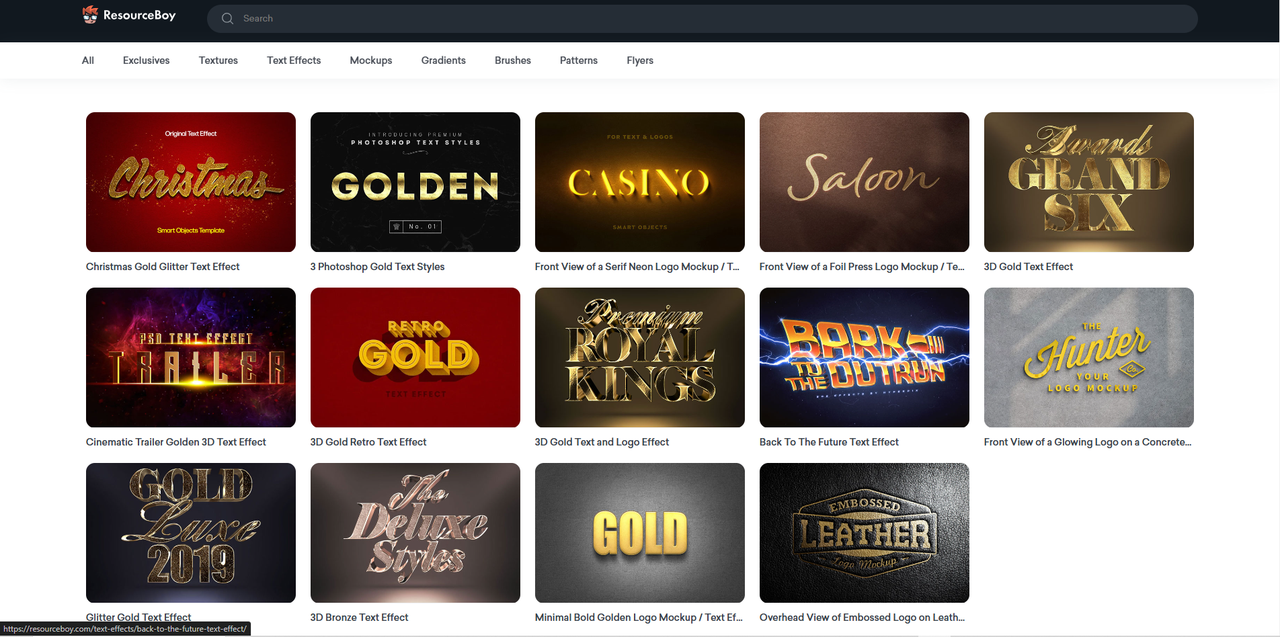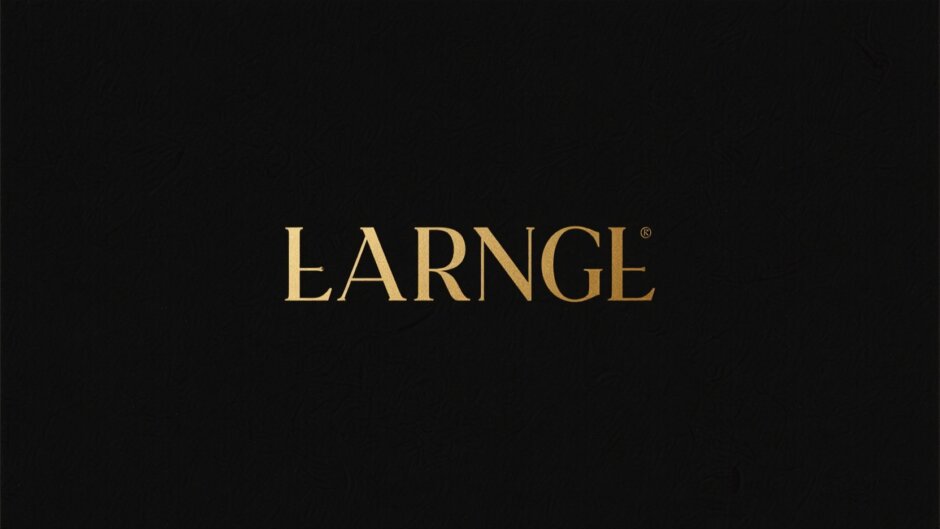
Ever notice how some designs just seem to sparkle and grab your attention right away? Often, it’s because they use something special—like gold fonts. Gold text has a way of making things look fancy, important, and just plain cool. Whether you’re designing an invitation, a logo, or a social media post, gold fonts can totally change the vibe.
In this guide, we’ll explore why gold fonts are so popular and check out some fun and creative ways to use them. We’ll also share some awesome tools that make it super easy to add golden text effects to your own projects. Let’s get started!
Why Gold Fonts Make Your Designs Stand Out
Gold isn’t just a color—it’s a feeling. It makes people think of luxury, celebration, and something special. When you use gold fonts in your designs, you’re adding a touch of elegance that can make your work look more polished and professional.
One of the best things about gold text is how well it contrasts with other colors. Whether your background is dark, light, or even colorful, gold tends to pop. That means your message won’t just be seen—it’ll be remembered.
Plus, gold fonts work for almost any occasion. Wedding invites, birthday cards, brand logos, YouTube thumbnails—you name it. There’s just something about gold that makes everything feel a little more special.
5 Creative Ways to Use Gold Fonts
Ready to get inspired? Here are five fun ideas for using gold fonts in your designs.
Fancy Script Fonts for Special Events
If you’re designing something for a wedding, a fancy party, or any kind of celebration, script fonts in gold are a perfect match. The flowing, elegant letters give a romantic and classy feel. Whether it’s an invite or a menu, gold script fonts make it look extra special.
Strong Serif Fonts for Branding
When you want your brand to look trustworthy and professional, serif fonts in gold are a great choice. They have a classic, strong look that people associate with quality. Adding a 3D gold effect can make your logo or brand name even more eye-catching.
Vintage Fonts for a Retro Vibe
Love that old-school look? Try using vintage-style gold fonts. They’re perfect for themed parties, retro product packaging, or anything that needs a nostalgic touch. A 3D gold effect can make vintage text look even more dynamic and interesting.
Clean Sans-Serif Fonts for a Modern Look
If your style is more modern and minimal, sans-serif gold fonts are the way to go. They’re simple, easy to read, and look great on websites, apps, or social media graphics. This style keeps things fresh and stylish.
Handwritten Fonts for a Personal Touch
Want to make your design feel friendly and personal? Handwritten gold fonts are awesome for greeting cards, blog graphics, or anything where you want to connect with your audience. They give a warm, human feel that’s hard to get with other fonts.
Top 5 Tools for Downloading Free Gold Text Effects
You don’t need to be a pro designer to use gold fonts. There are tons of free tools online that make it easy to add beautiful gold text to your projects. Here are five of our favorites.
CapCut Desktop Video Editor
If you’re into making videos, CapCut is a game-changer. It’s packed with cool features, including awesome gold text effects and animations. The best part? It’s super easy to use, even if you’ve never edited a video before.
Why CapCut Is Great for Gold Fonts
CapCut has built-in gold text effects, so you don’t need extra plugins or complicated steps. You can adjust shadows, glows, and blend modes to make your text look just right. It also lets you place text exactly where you want it, which is perfect for creating cool layouts.
How to Add Gold Fonts in CapCut
First, download and install CapCut. Open the software and start a new project. Import your video by dragging and dropping it into the workspace.
Next, go to the “Text” menu, click on “Effects,” and choose a gold text style. You can customize the color, opacity, and position until it looks perfect. If you want something more unique, try the “AI generated” option and type in “Gold text” for even more ideas.
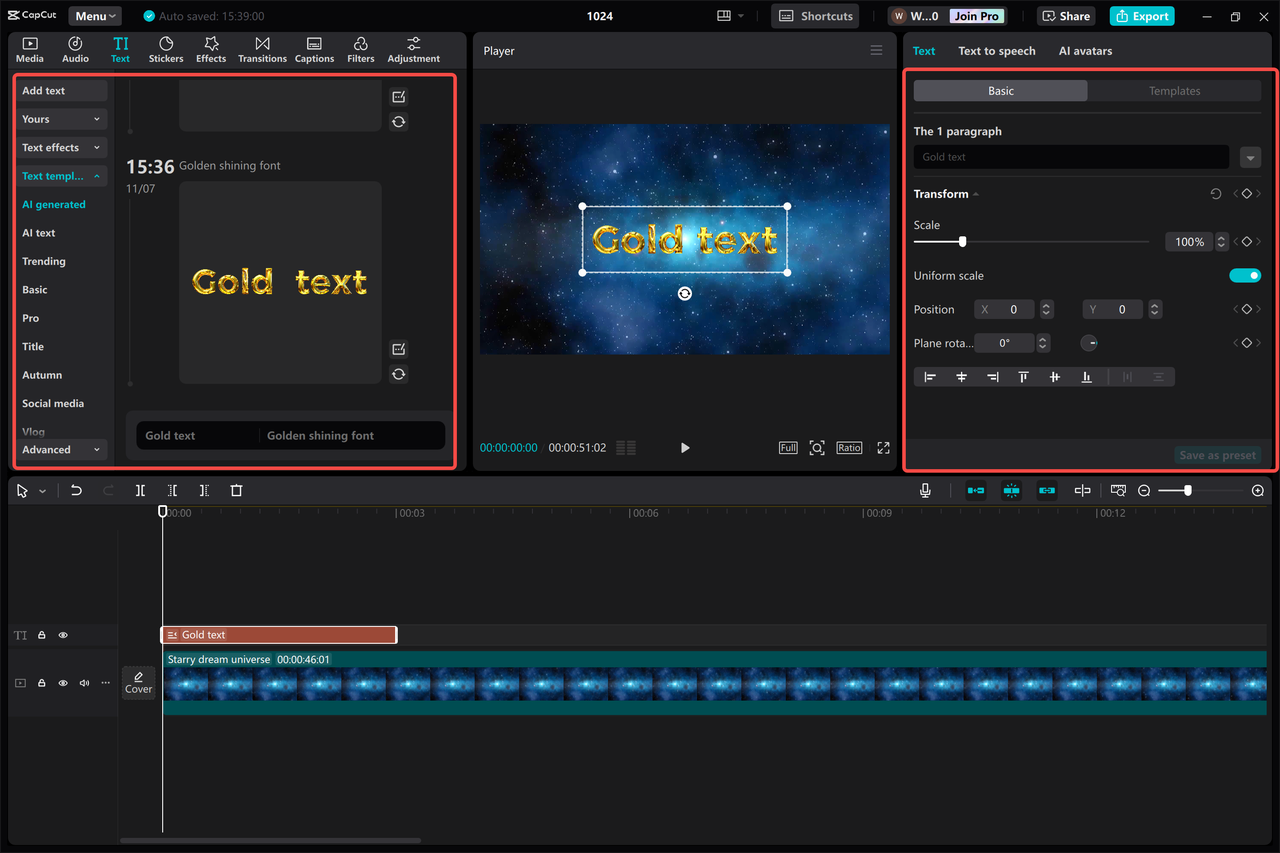
When you’re happy with your video, export it and share it with the world!
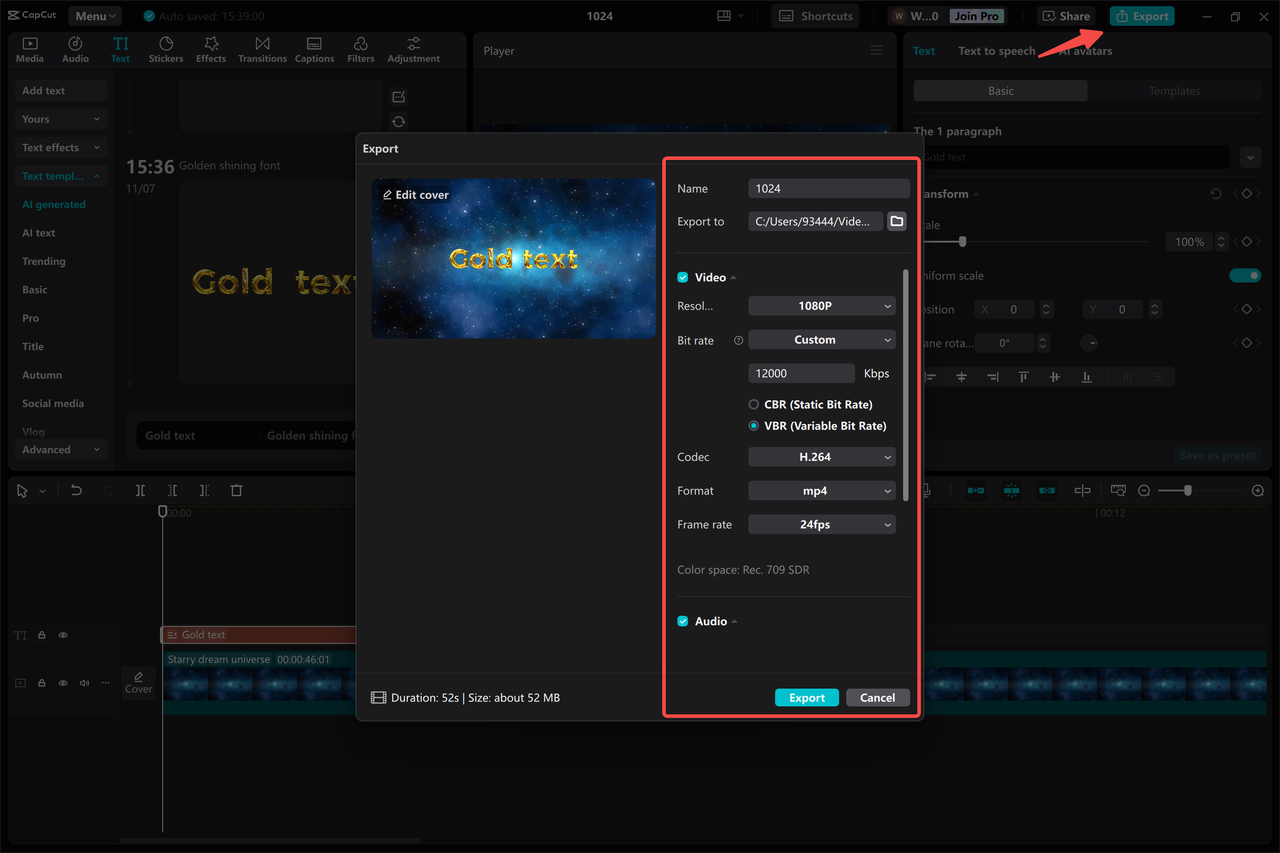
Fontspace
Fontspace is a huge library of free fonts, including tons of gold text options. You can browse by style, see previews, and download your favorites in just a few clicks. It’s a great resource for finding unique fonts that fit your project perfectly.
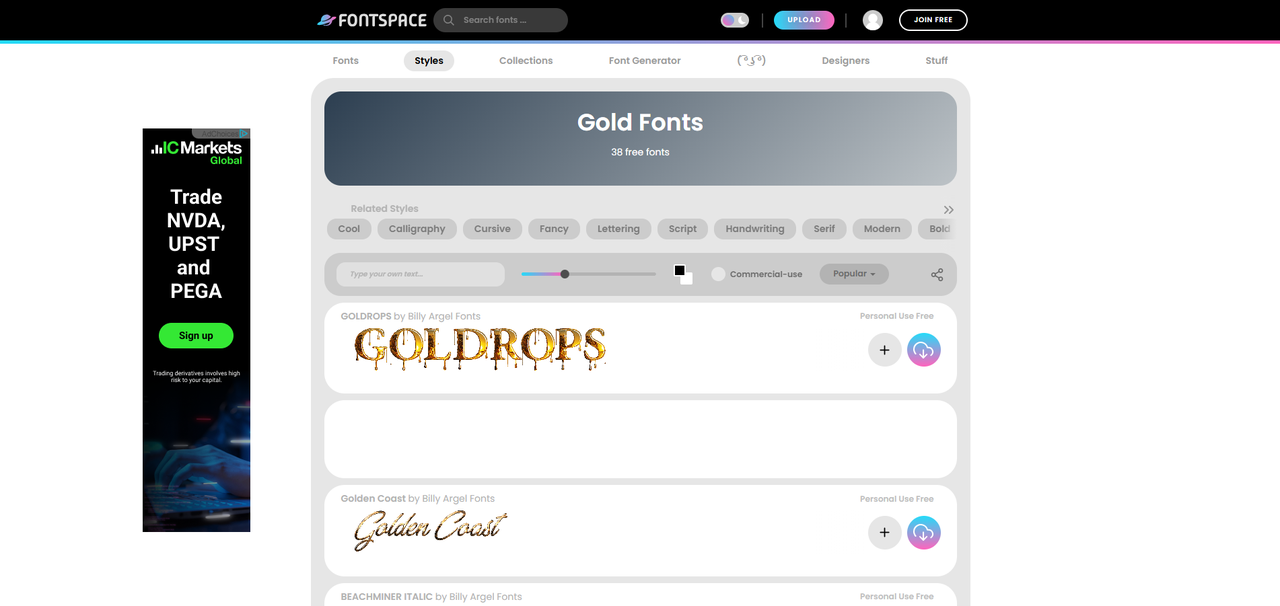
Freepik
Freepik is a go-to site for designers. It offers lots of free and premium gold text effects, especially in PSD format, which means you can easily customize them. It’s perfect for social media graphics, posters, logos, and more.
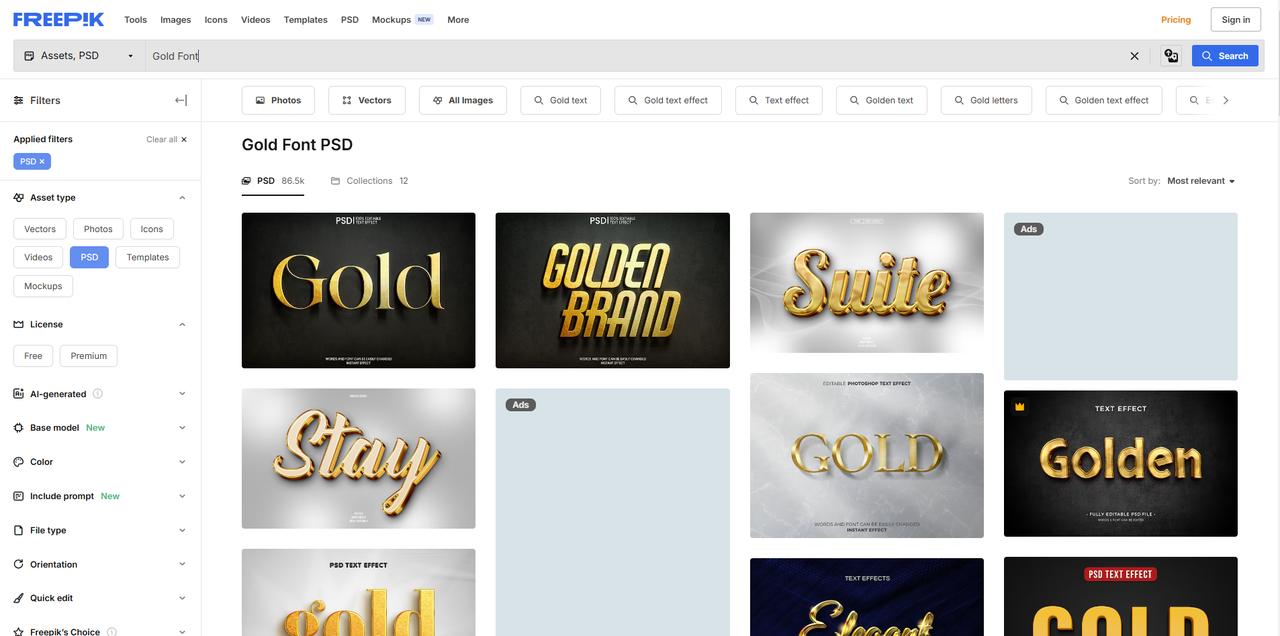
Where can I customize gold font effects?
Lots of tools let you customize gold text. Adobe Photoshop and Canva are great for static designs, while CapCut is perfect for videos. Each tool has its own strengths, so pick the one that fits your project best.
How do I get 3D gold foil text effects?
Websites like Freepik and Creative Market offer downloadable 3D gold foil effects. You can often find both free and paid options. For videos, CapCut has built-in gold effects that don’t require any extra downloads.